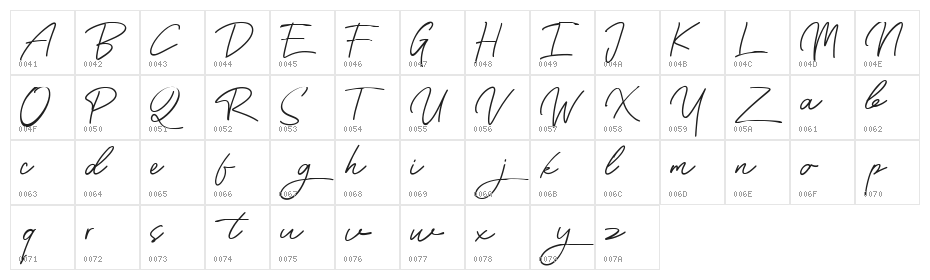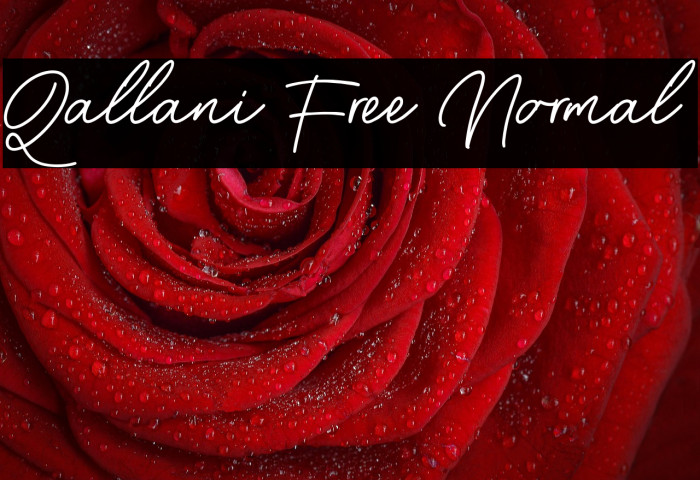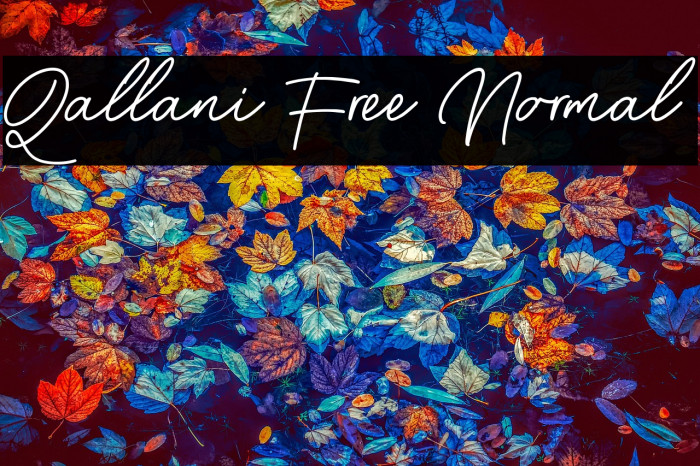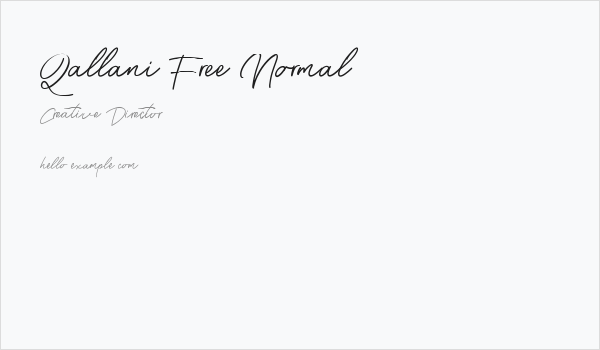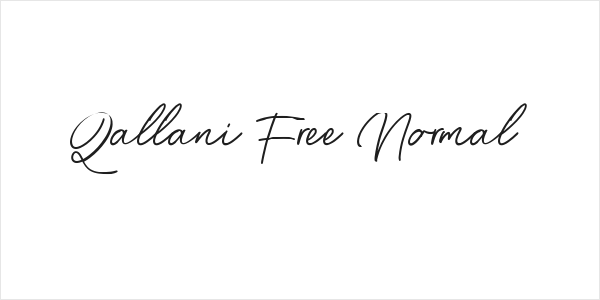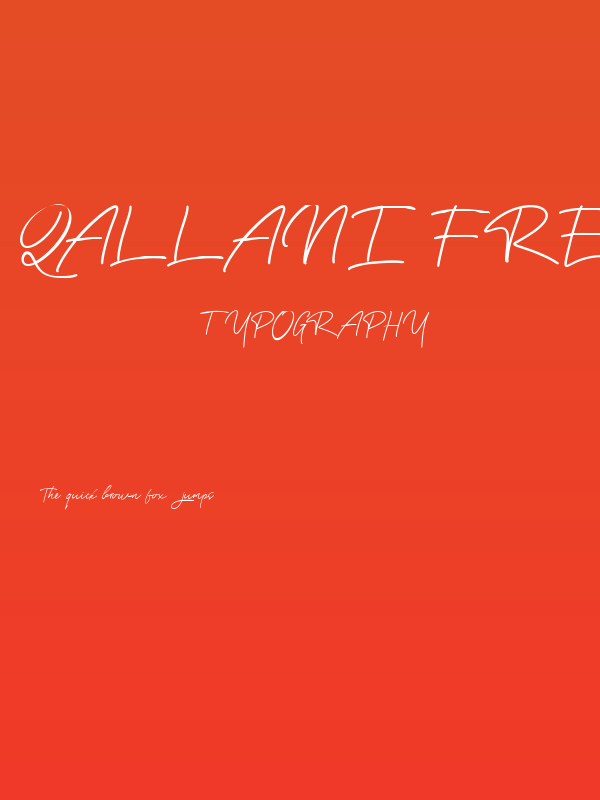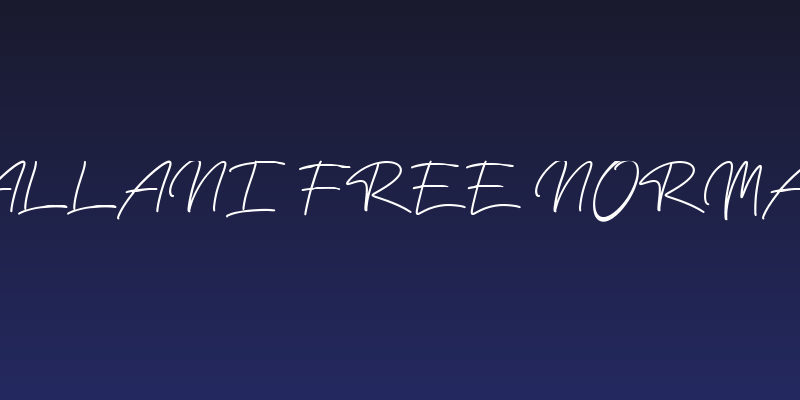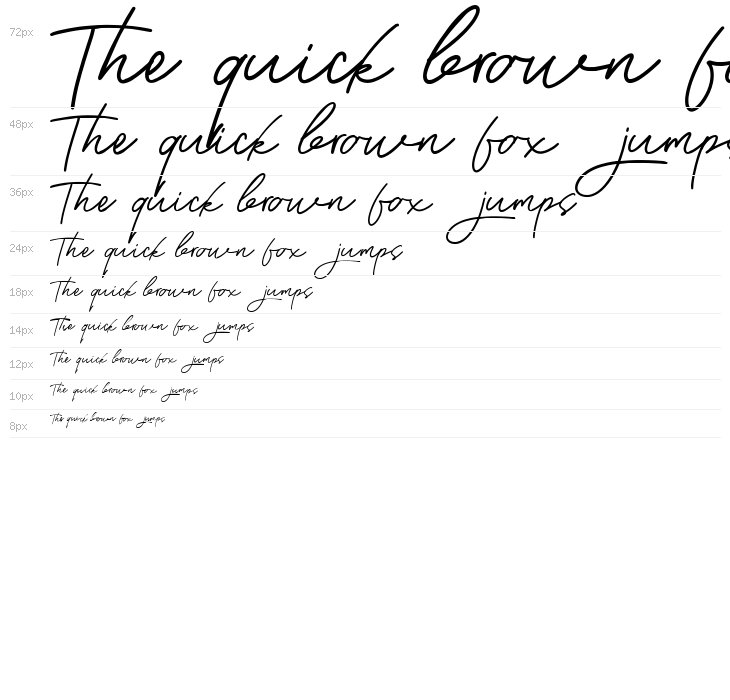
Qallani Free Normal Font
Qallani Free Normal Description
This font features an elegant, flowing script style that mimics natural handwriting. The uppercase letters are tall and slender, with a slight slant, giving them a graceful appearance. The lowercase letters are more fluid and connected, enhancing the handwritten feel. The strokes vary in thickness, adding a dynamic and lively character to the text. The overall design is sophisticated and artistic, making it suitable for projects that require a personal touch. The font's unique style is both modern and timeless, making it versatile for various applications.
| Use Case | Logos, Invitations, Personal branding |
| Proposed Projects | Ideal for wedding invitations, greeting cards, logos, and personal branding. |